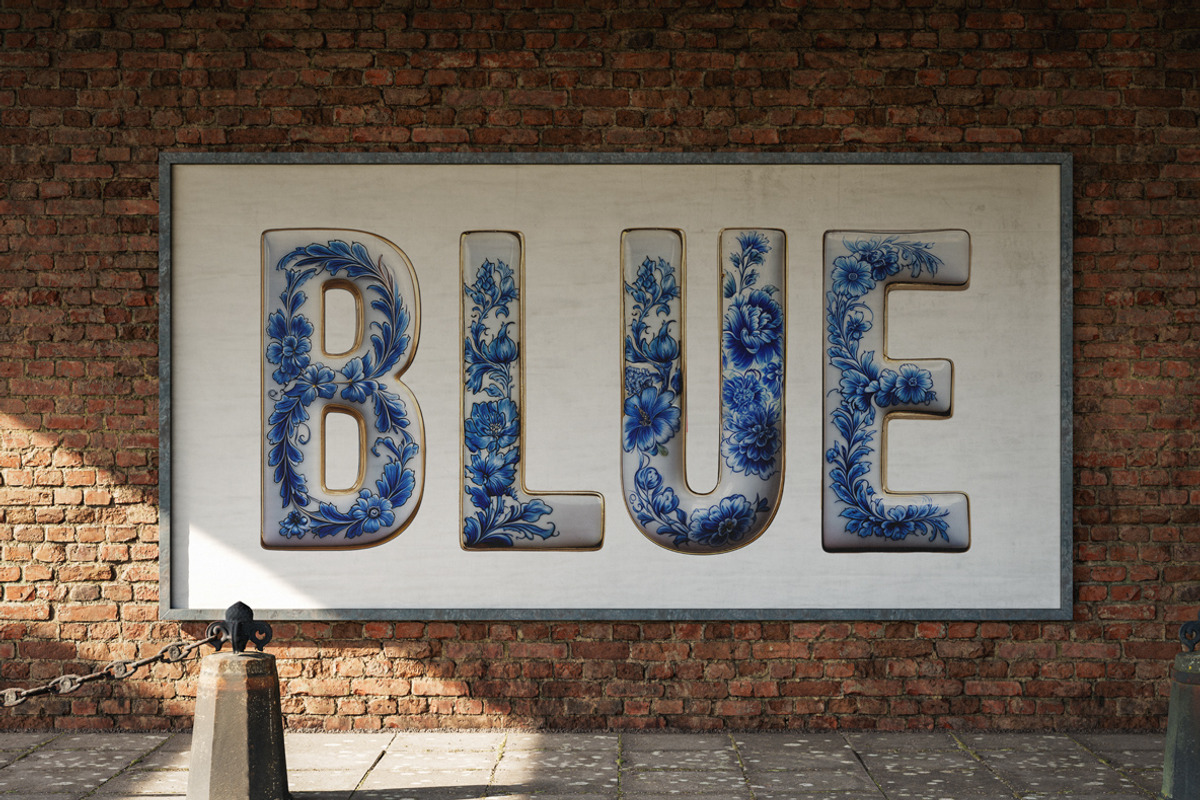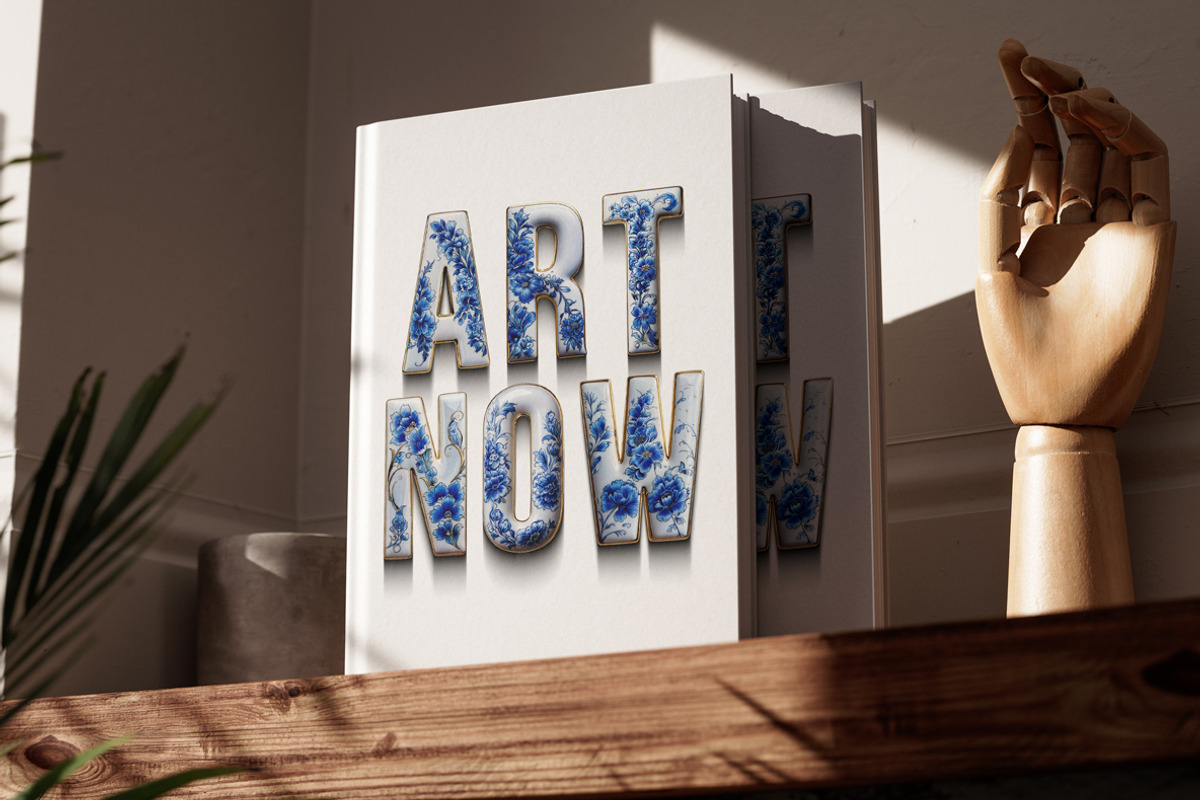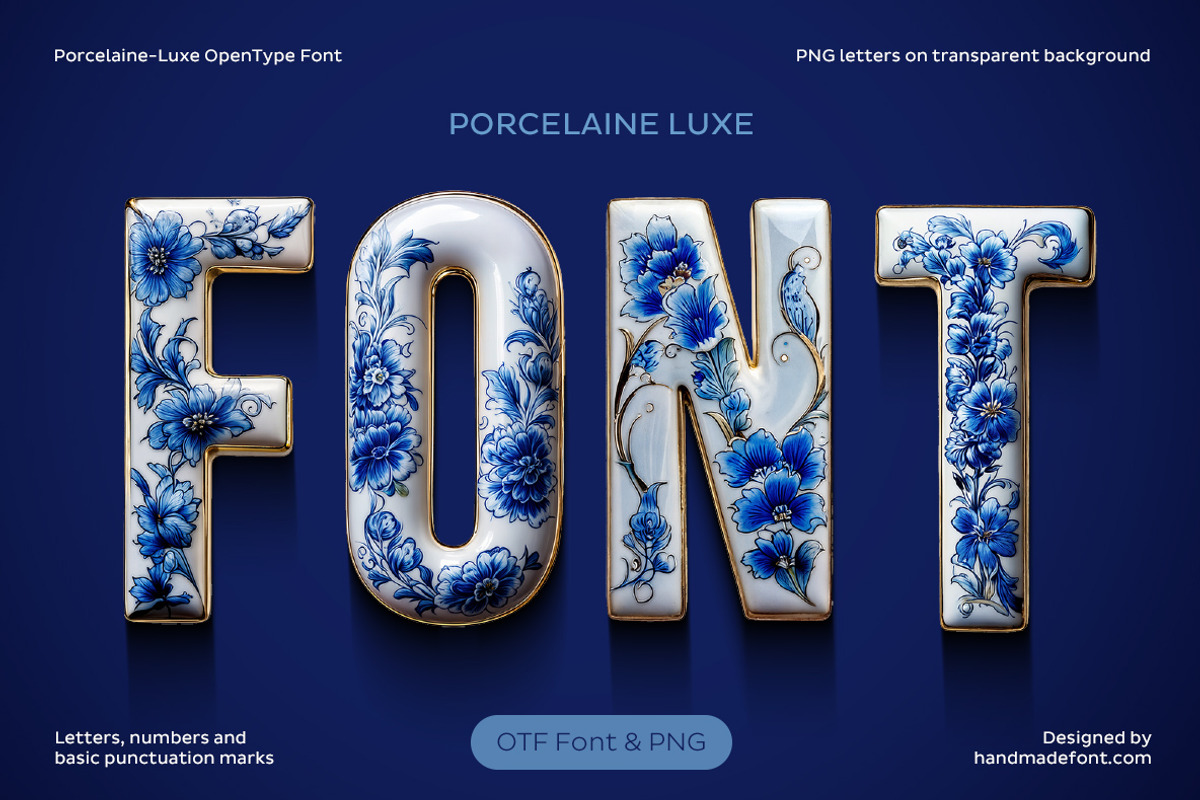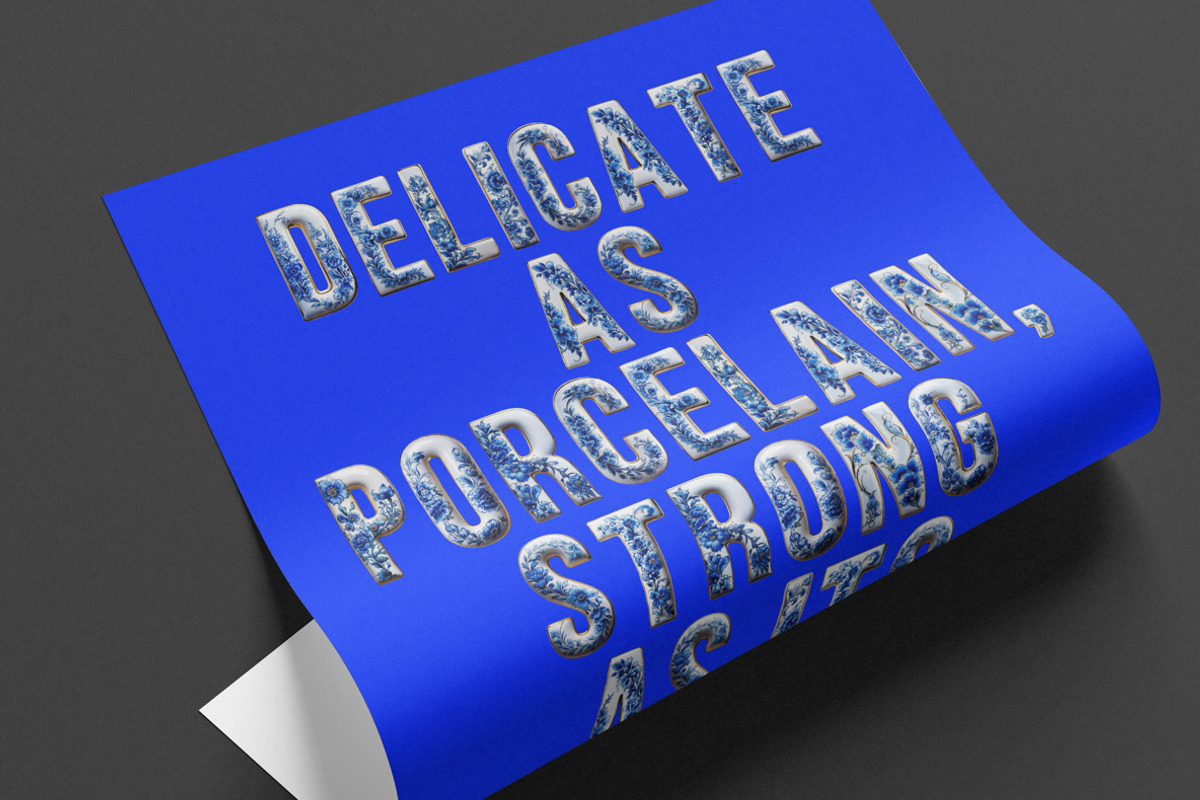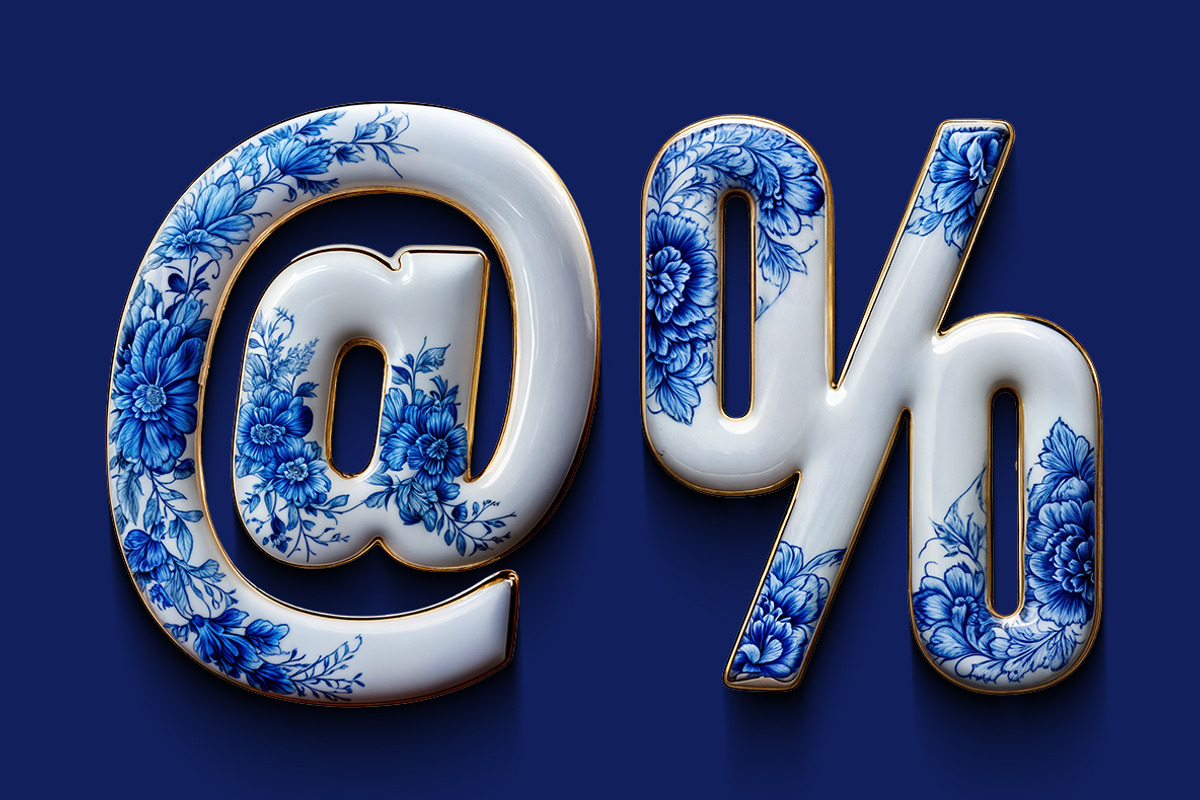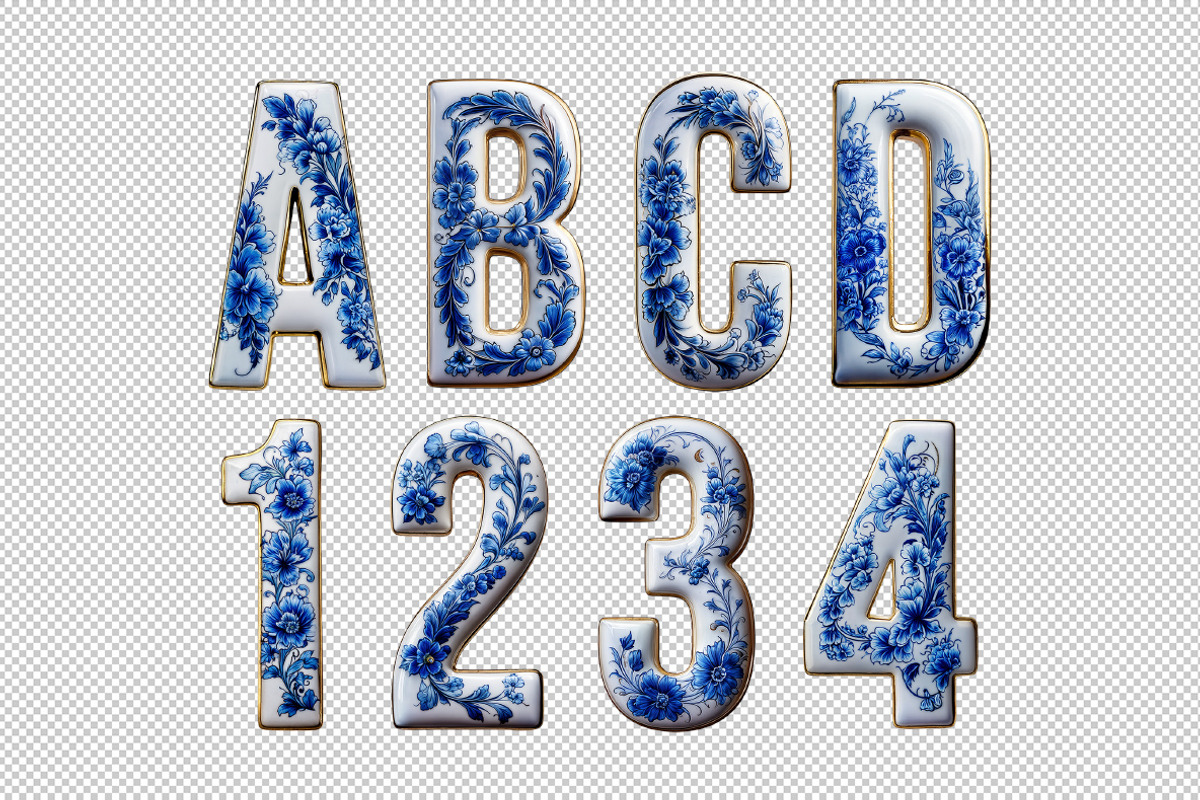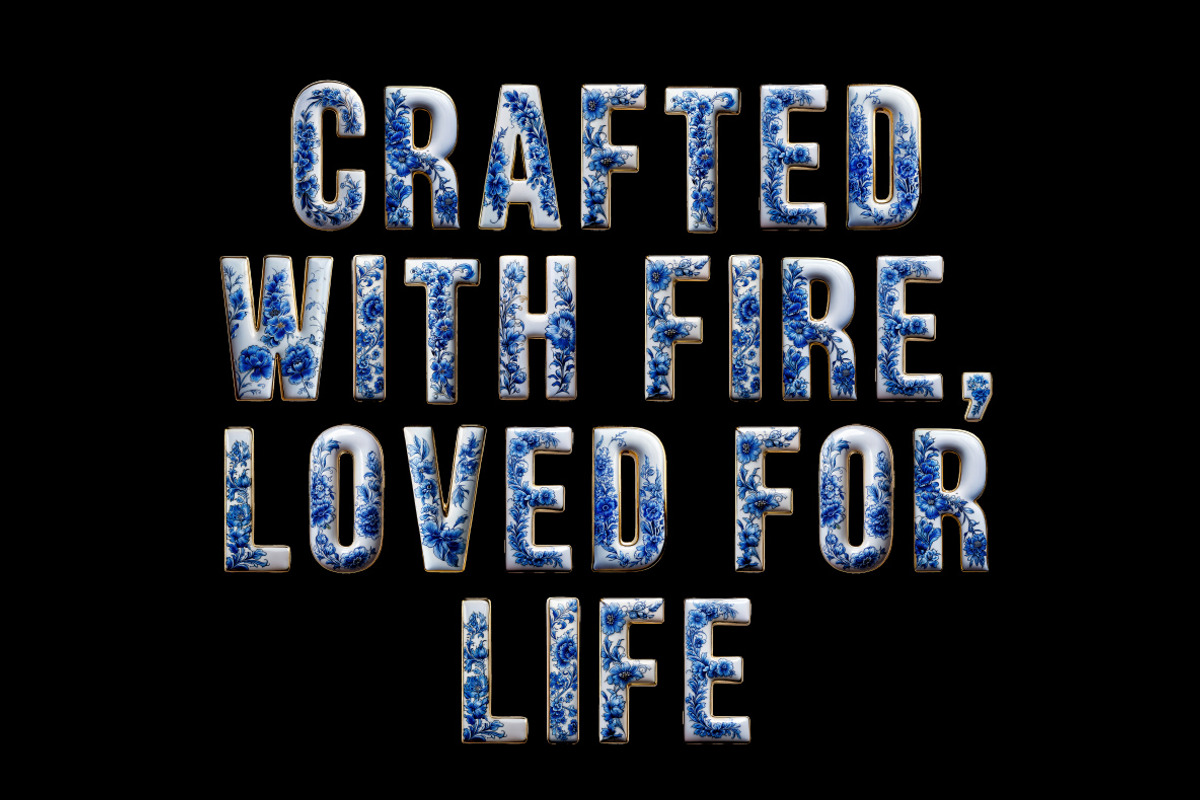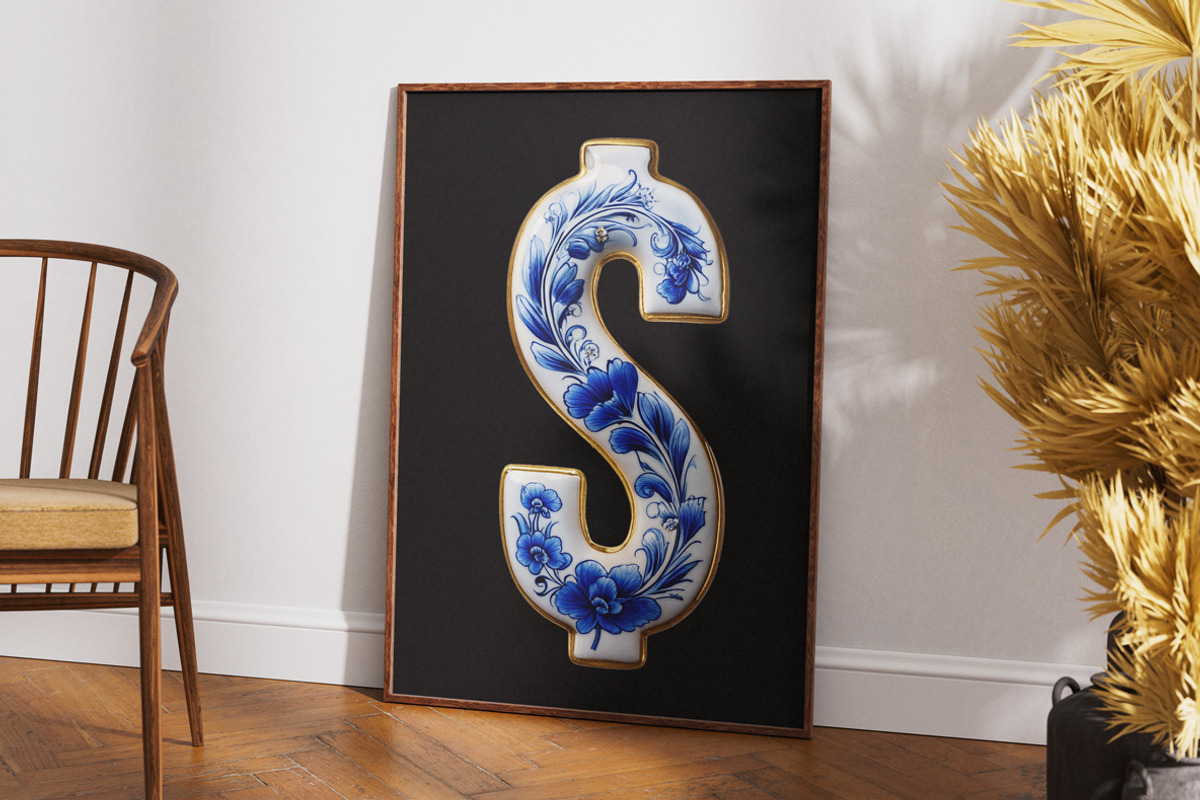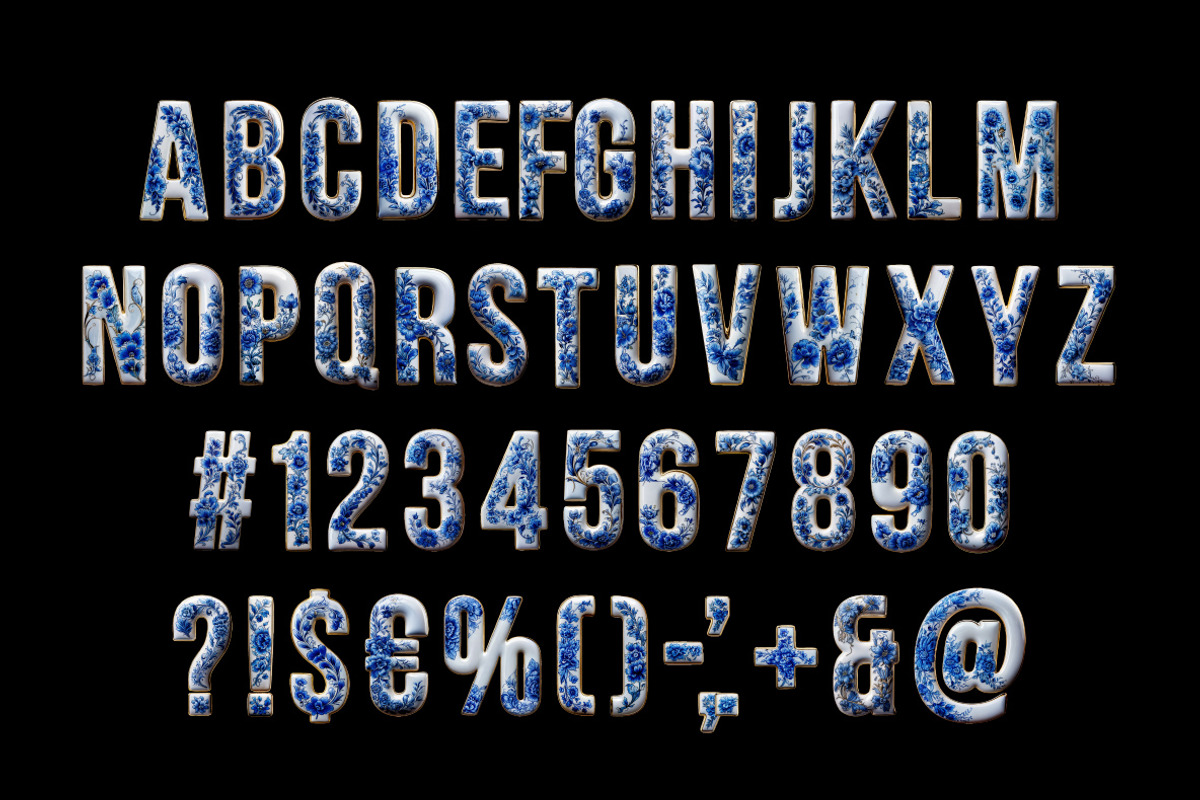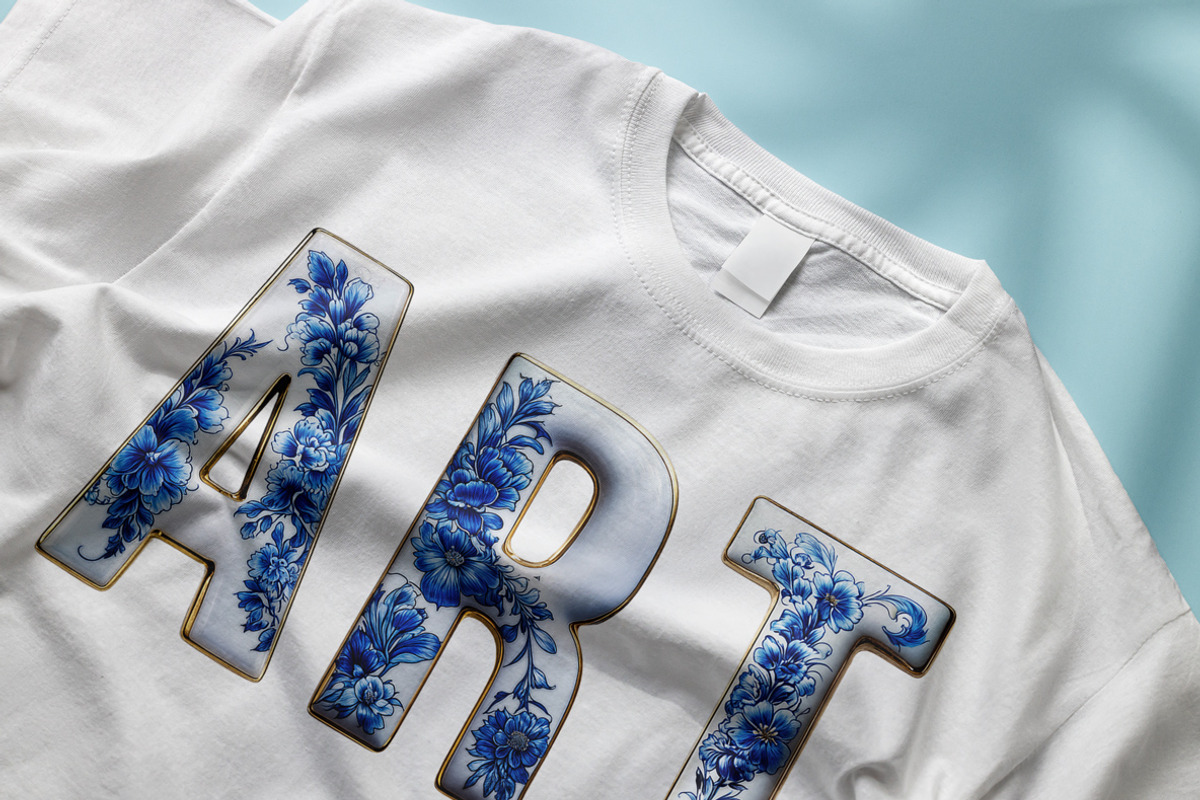
Porcelaine Luxe Font
"Porcelaine-Luxe Font" is where elegance meets artistry—each letter and number is a miniature masterpiece, dripping in royal blue florals and kissed with golden edges. Inspired by antique porcelain and hand-painted to perfection, this font doesn’t whisper luxury—it sings it! Ideal for branding fit for a queen, wedding invites that deserve a standing ovation, or packaging that turns heads before it’s even opened. It's not just a font—it’s a porcelain parade in alphabetical order. Spell it like it’s fine china—with Porcelaine-Luxe.
- Letters : A B C D E F G H I J K L M N O P Q R S T U V W X Y Z
- Numbers : 0 1 2 3 4 5 6 7 8 9
- Others : ! ? - . ' $ € % & #